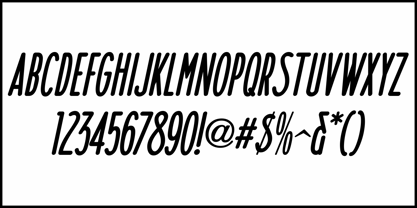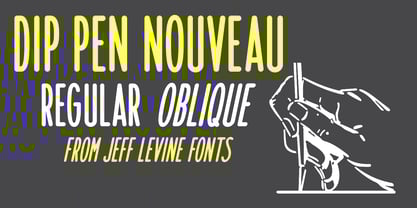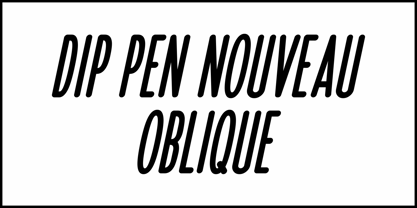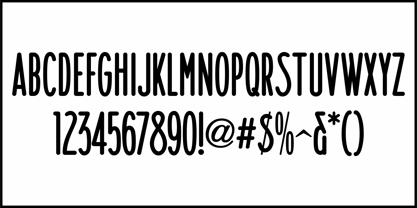
Dip Pen Nouveau JNL
by Jeff Levine
An ad in the November 11, 1914 issue of Motion Picture News for the Wurlitzer Theate Orchestra Organ contained hand lettering drawn by a round nib dip pen in a condensed sans serif style with Art Nouveau influences.
This was the design model for Dip Pen Nouveau JNL, which is available in both regular and oblique versions.